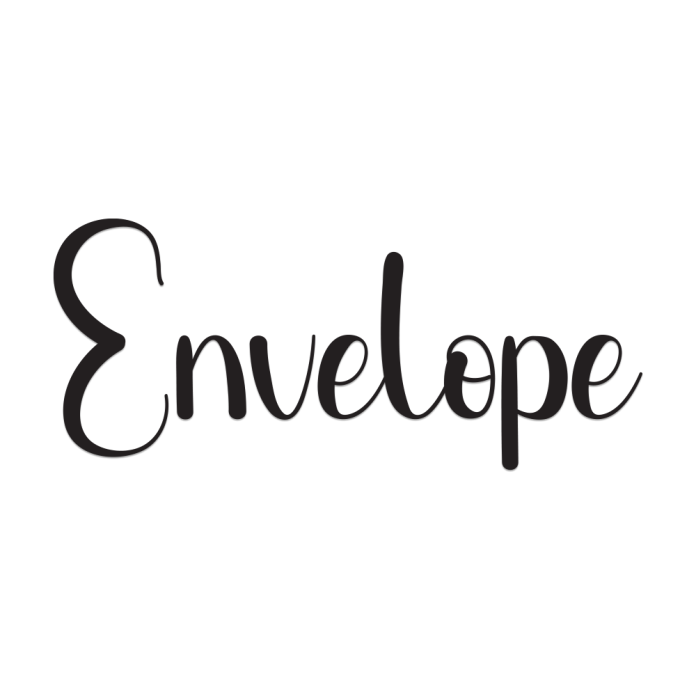
Envelope is a beautifully crafted handwriting font that captures the charm of a handwritten note or a sealed letter filled with emotion. With smooth, graceful strokes and a touch of vintage flair, this font brings warmth and sincerity to any design.
Perfect for wedding invitations, personal branding, greeting cards, letters, and heartfelt quotes, Envelope gives your words a timeless, handwritten touch.
Elegant and personal handwritten style
Soft curves with natural, flowing rhythm
Ideal for stationery, love letters, branding, and sentimental messages
Seal your designs with sincerity using Envelope, the handwriting font that speaks from the heart.